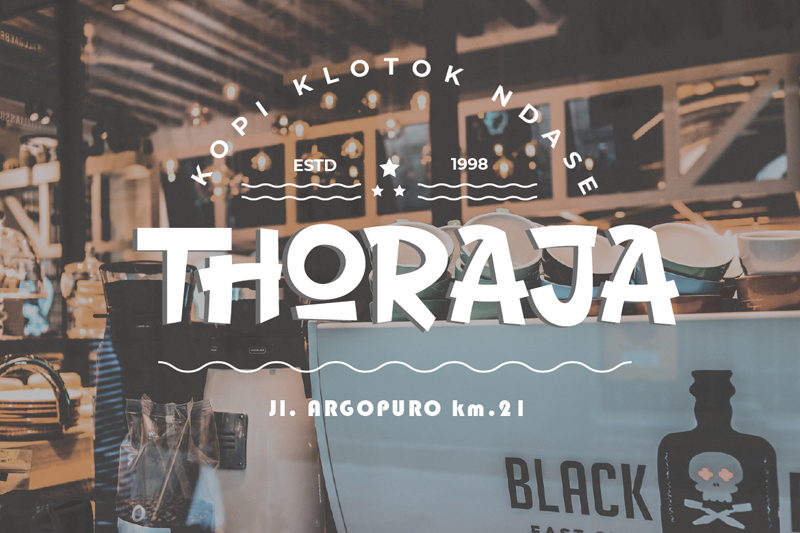
Preview and download Thorate Font. Created by Murozakul Akhsan in Fancy Cartoon styles with Free for personal use license.
THORATE is a cool and aesthetic display font. Whatever the topic, this font will be a great asset to your font library, as it has the potential to enhance any creation THIS FONT IS DEMO ONLY Free for personal used any donation are very appreciated. PayPal account for donation : https://paypal.me/murozakul ENGLISH: Be very careful and take the time to read any and all documentation before deciding to use a font commercially. Ignorance is not an excuse for breaking the law. By installing or using this font, you are hereby agree to this Product Usage Agreement: 1. This font is ONLY FOR PERSONAL USE 2. NO COMMERCIAL USE ALLOWED 3. You are REQUIRES A LICENSE for PROMOTIONAL or COMMERCIAL USE 4. CONTACT ME before any Promotional or Commercial Use For special offer commercial EMAIL me: amurozakul@gmail.com whatshap : 085641919322 Follow me on: isi link affiliate mu: https://www.creativefabrica.com/ref/1232658/ INDONESIA: Berhati-hatilah dan luangkan waktu untuk membaca Syarat & Ketentuan dibawah, sebelum memutuskan untuk menggunakan font secara komersial. Ketidaktahuan bukanlah alasan untuk suatu pelanggaran hukum. More... |